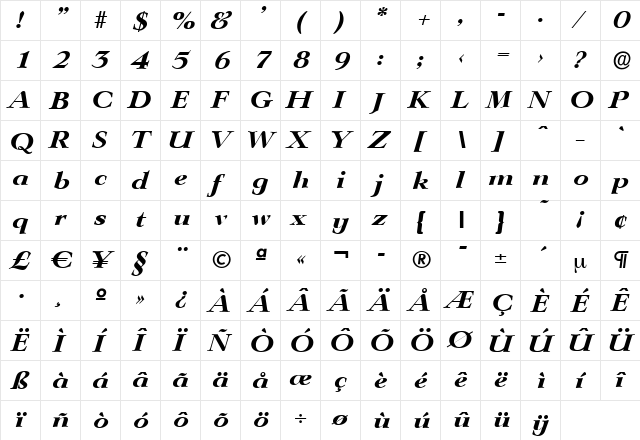
PhillipBecker-ExtraBold Italic Font Preview
Design Context for PhillipBecker-ExtraBold Typeface
PhillipBecker-ExtraBold takes a measured approach to typography — its balanced proportions and neutral character make it a reliable workhorse for both digital and print work. Its italic angle brings a sense of urgency and motion to the letterforms. The heavy weight commands attention and anchors typographic hierarchies.
Pro Tip: Try PhillipBecker-ExtraBold for annotation and caption copy alongside an upright companion — the contrast in angle creates a dynamic but ordered typographic system.